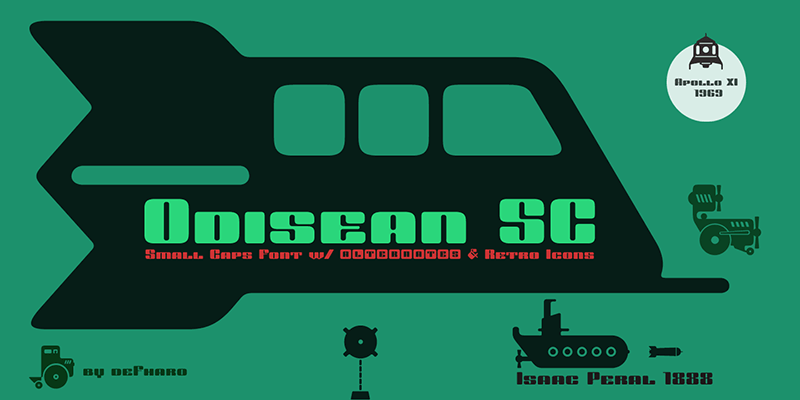
Font name: | Odisean SC |
The Odisean Small Caps is designed for large sizes with retro style, including alternative lettering and retro transportation icons. - Odisean Small Caps bring elegance and versatility to your designs with their small capital letters. ============================= FULL VERSIONS & LICENSES: https://defharo.com/fonts/odisean/ ============================= |